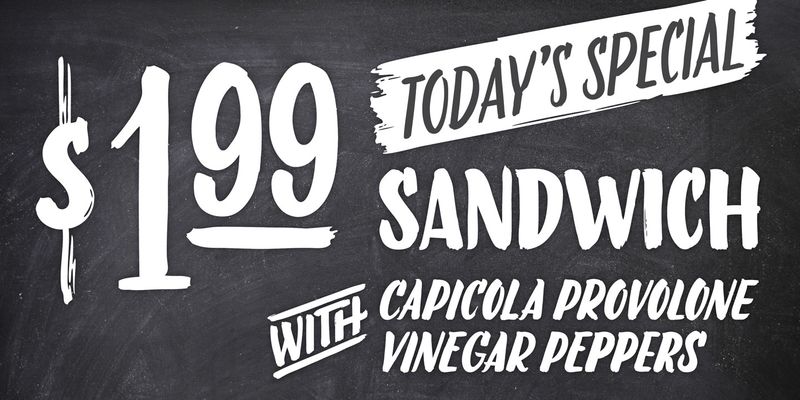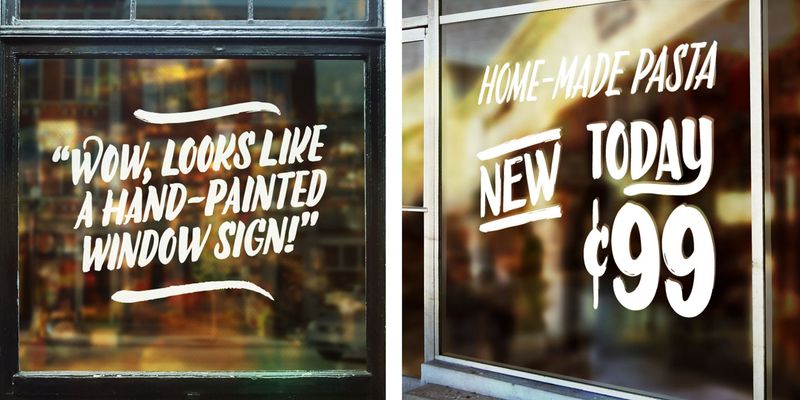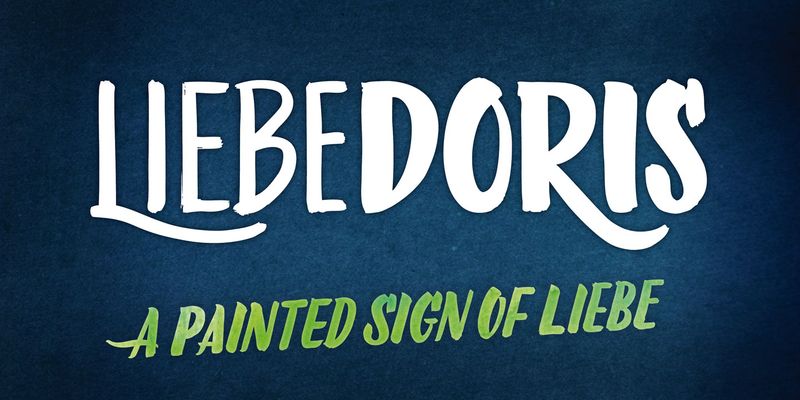
Inspired by a workshop with iconic American sign painter Mike Meyer, Ulrike of LiebeFonts set out to create a versatile, lovely typeface for sign painting that looks not at all like a font but rather like the letters on a unique, hand-painted storefront sign.
LiebeDoris combines the best of two worlds: the beauty of all-American sign painting and the meticulous craft of German engineering.
Each and every letter in each of the four different styles in LiebeDoris was hand-painted on large sheets of paper with a brush and ink, then carefully transferred for digital typesetting. So rather than being one typeface with different weights, think of LiebeDoris as a package of four individual designs that go together very well.
Advanced OpenType features enable this font to really shine: every letter in this all-caps font comes in four variations, so that two of the same letters typed in a row won’t look the same, giving a truly handmade charm.
And if you do have a storefront or a restaurant menu to prettify with LiebeDoris, you will love the integrated collection of store-themed catch words like “FREE”, “NEW”, and “SALE”.